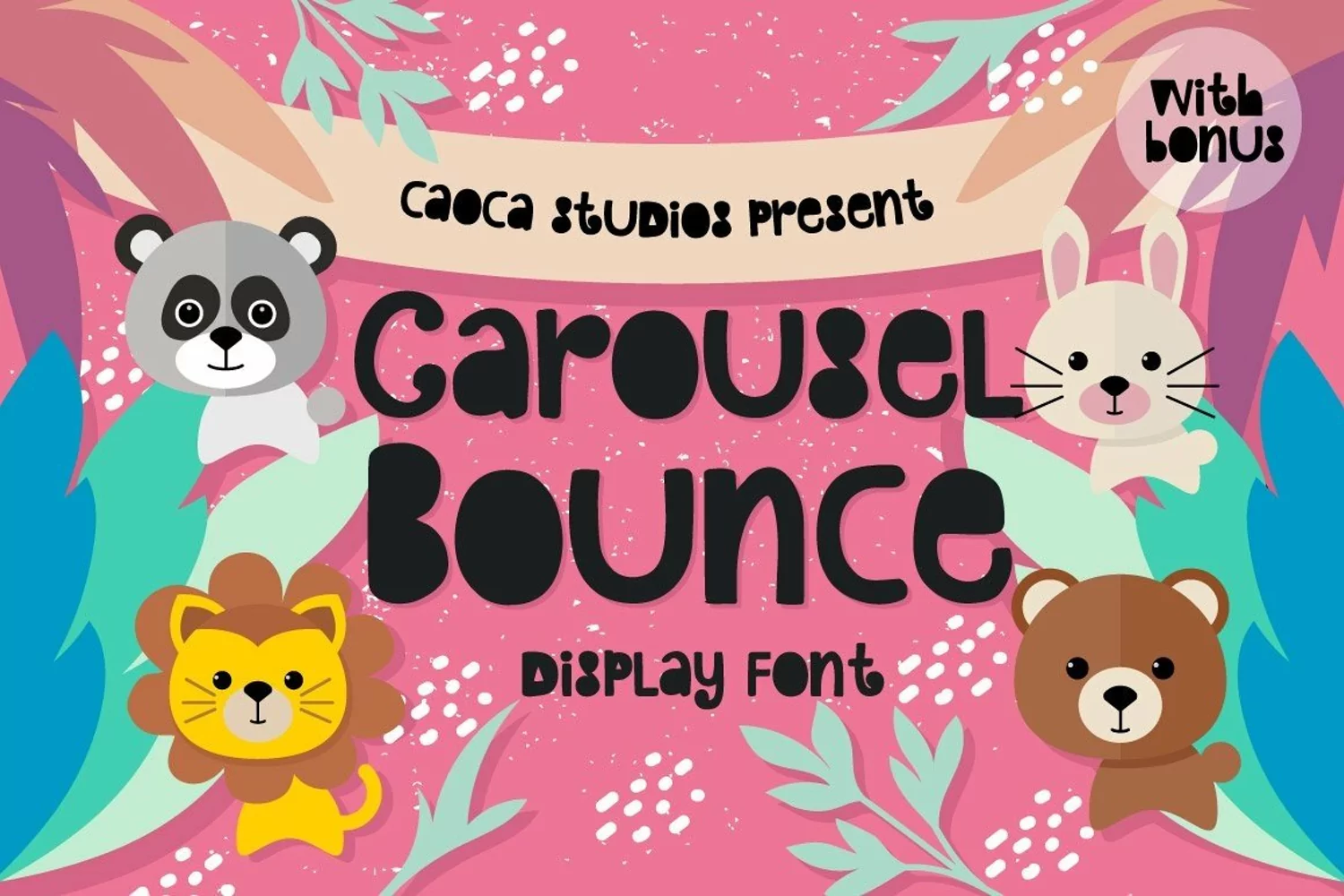
Hi There! Carousel Bounce is a fun block style font suitable for your creative project, poster, children invitation,card, cushion, post card,mug design, shirt, kids design and much more! You will get :